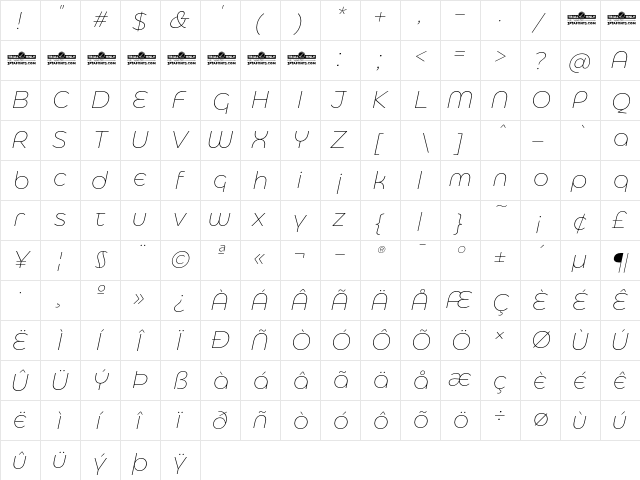
Eastman Alternate Trial Extralight Italic
| Foundry | Zetafonts |
| Designer | Francesco Canovaro |
Design Context for Eastman Alternate Trial Typeface
Eastman Alternate Trial offers clean, dependable letterforms without strong stylistic allegiance, making it a practical choice for designers who need flexibility. Its italic angle brings a sense of urgency and motion to the letterforms. Its slender proportions lend an understated elegance to any composition.
Pro Tip: Use Eastman Alternate Trial for emphasis, pull quotes, and subheadings where its slanted energy can add rhythm to the layout.